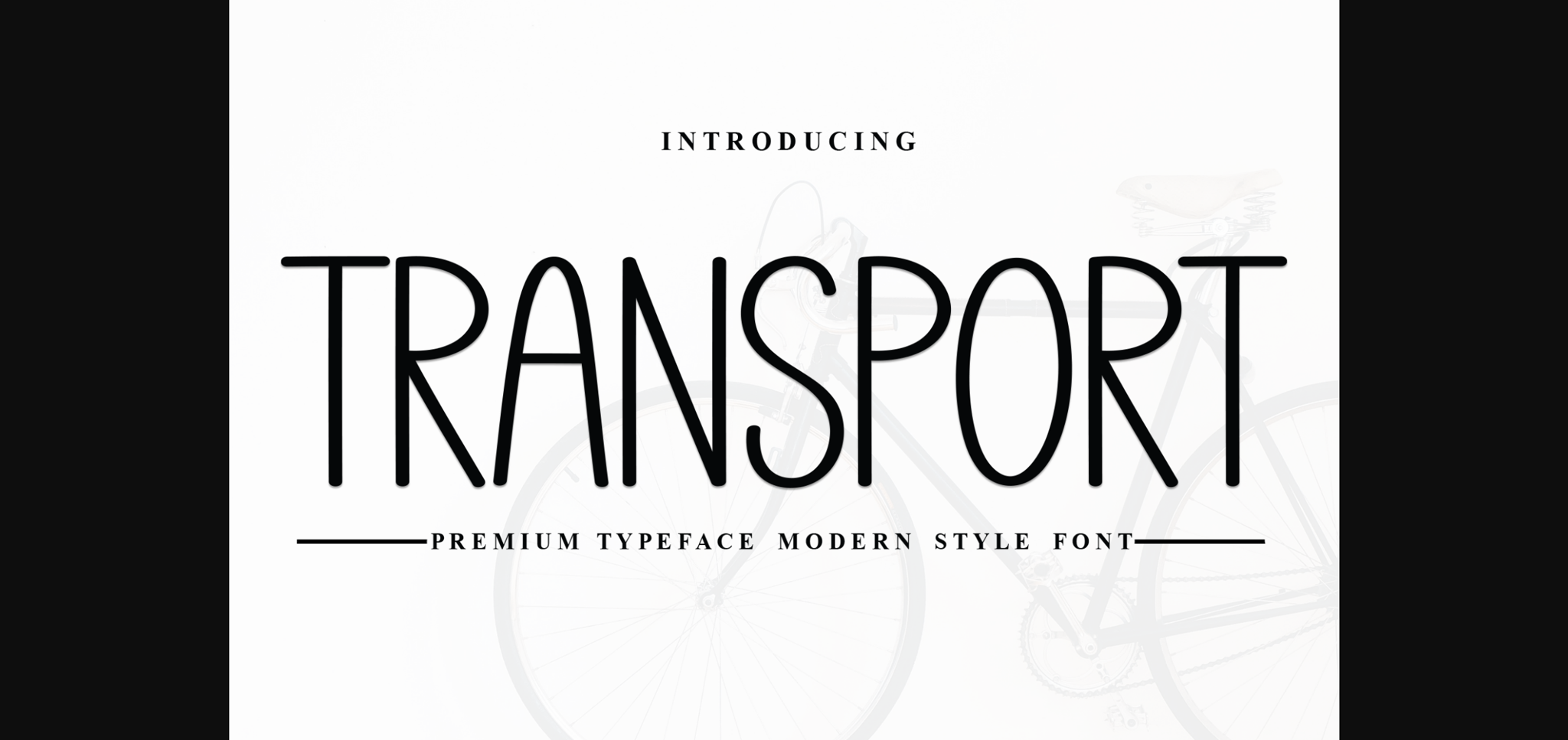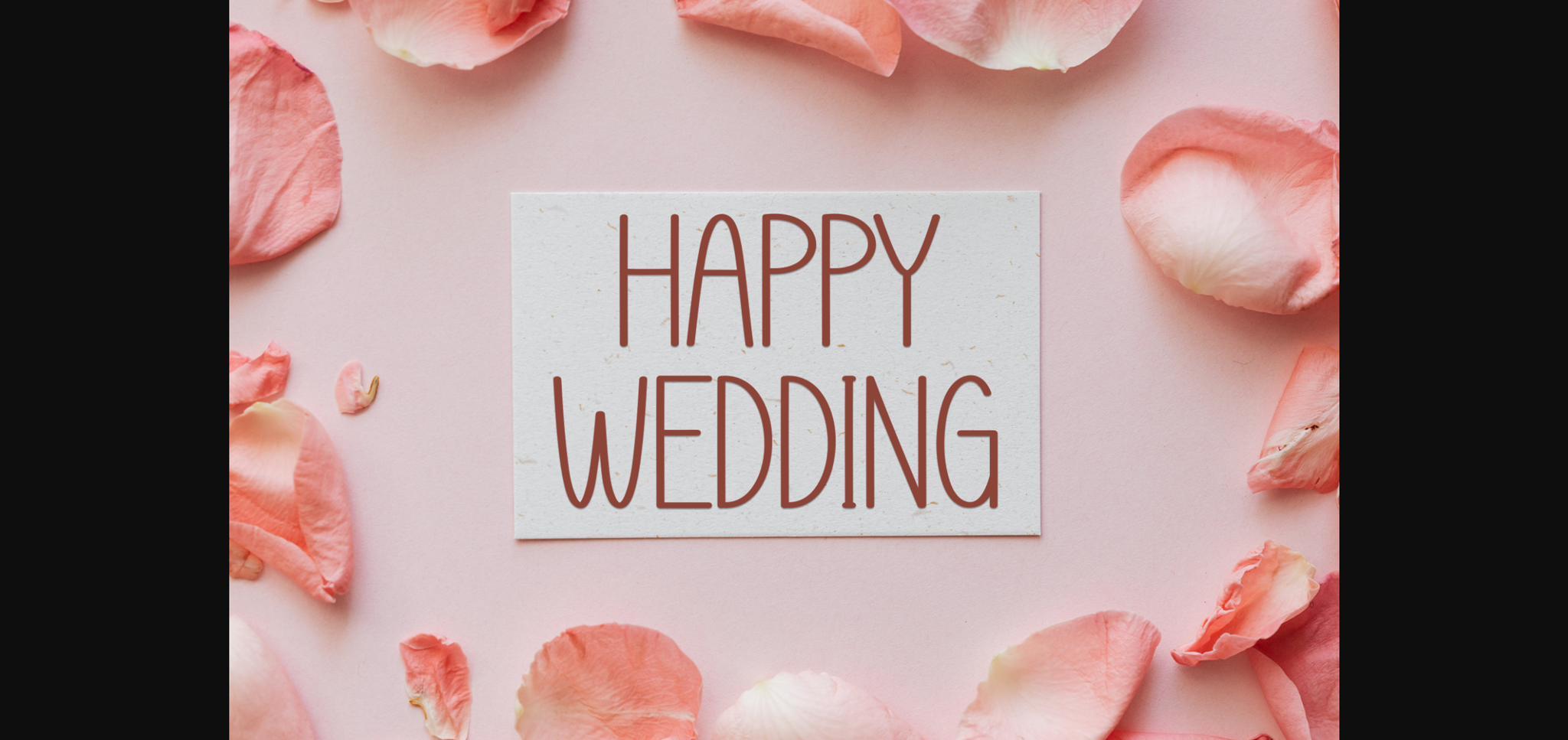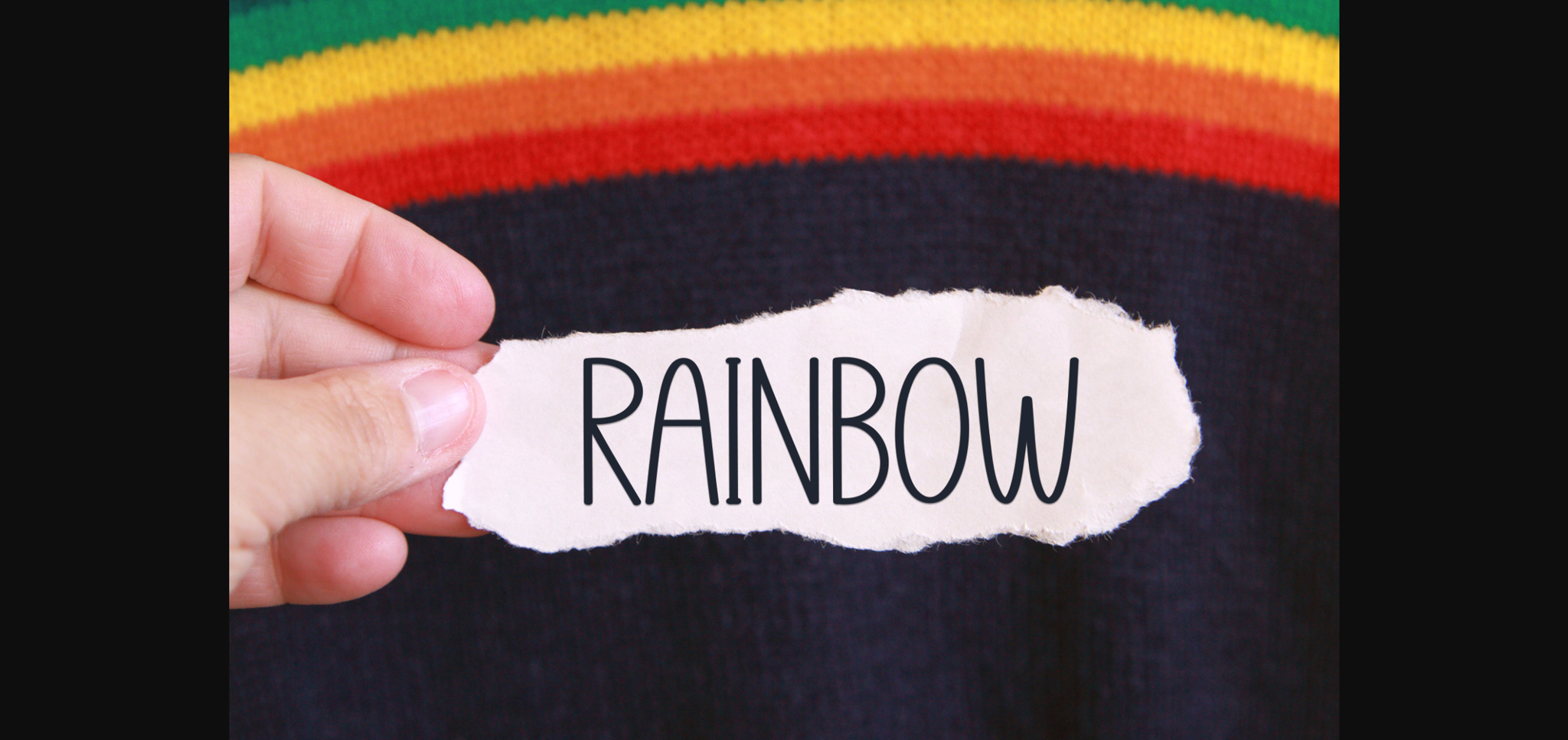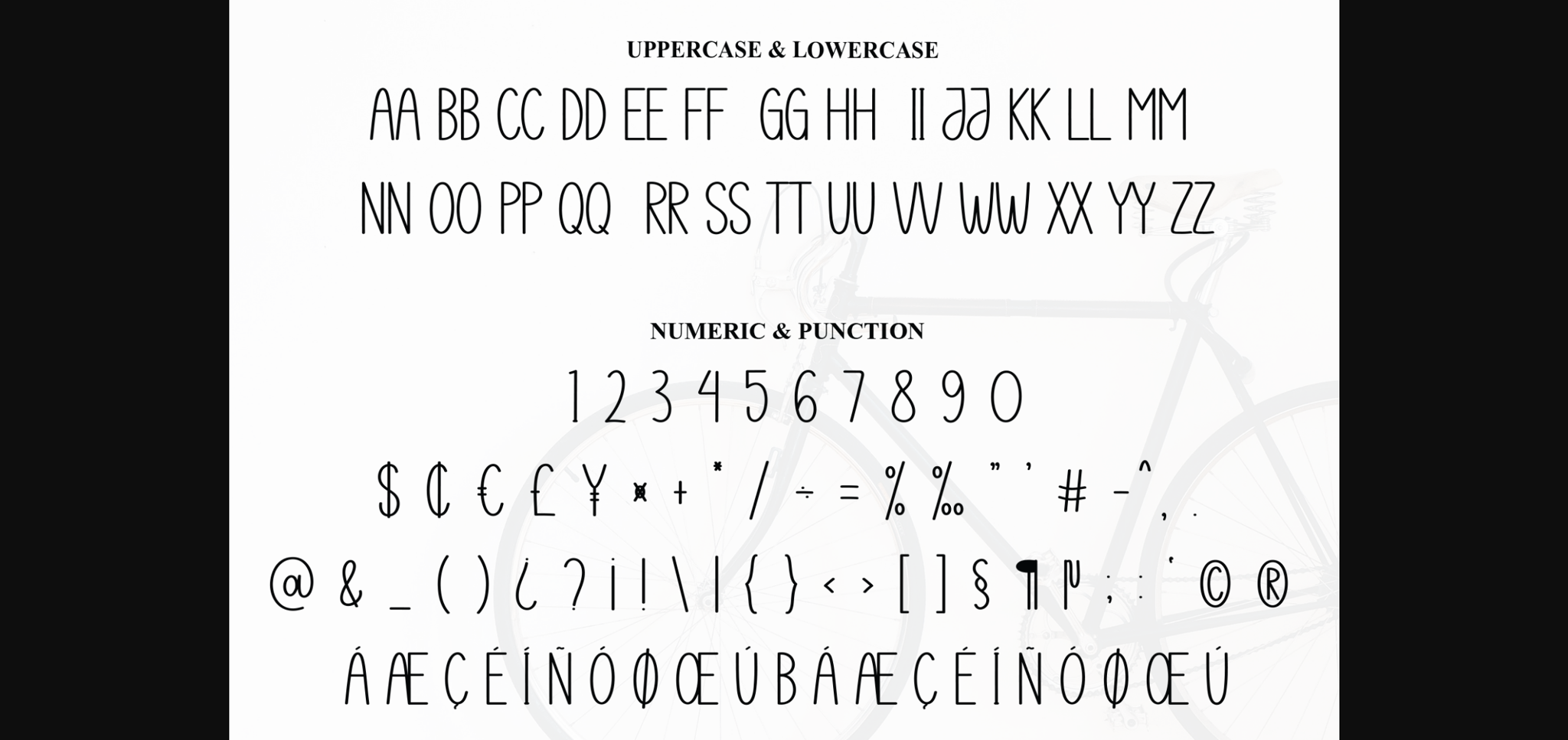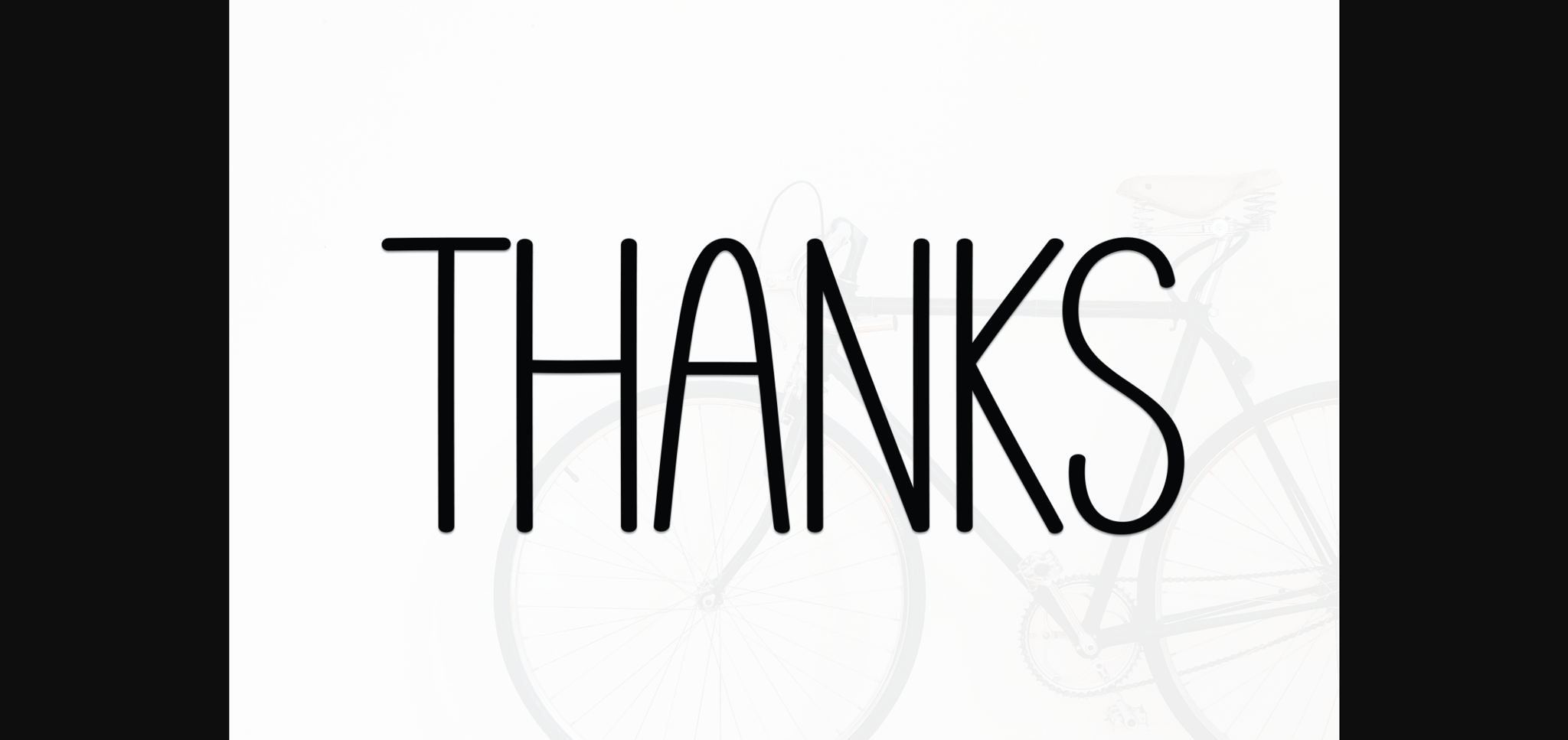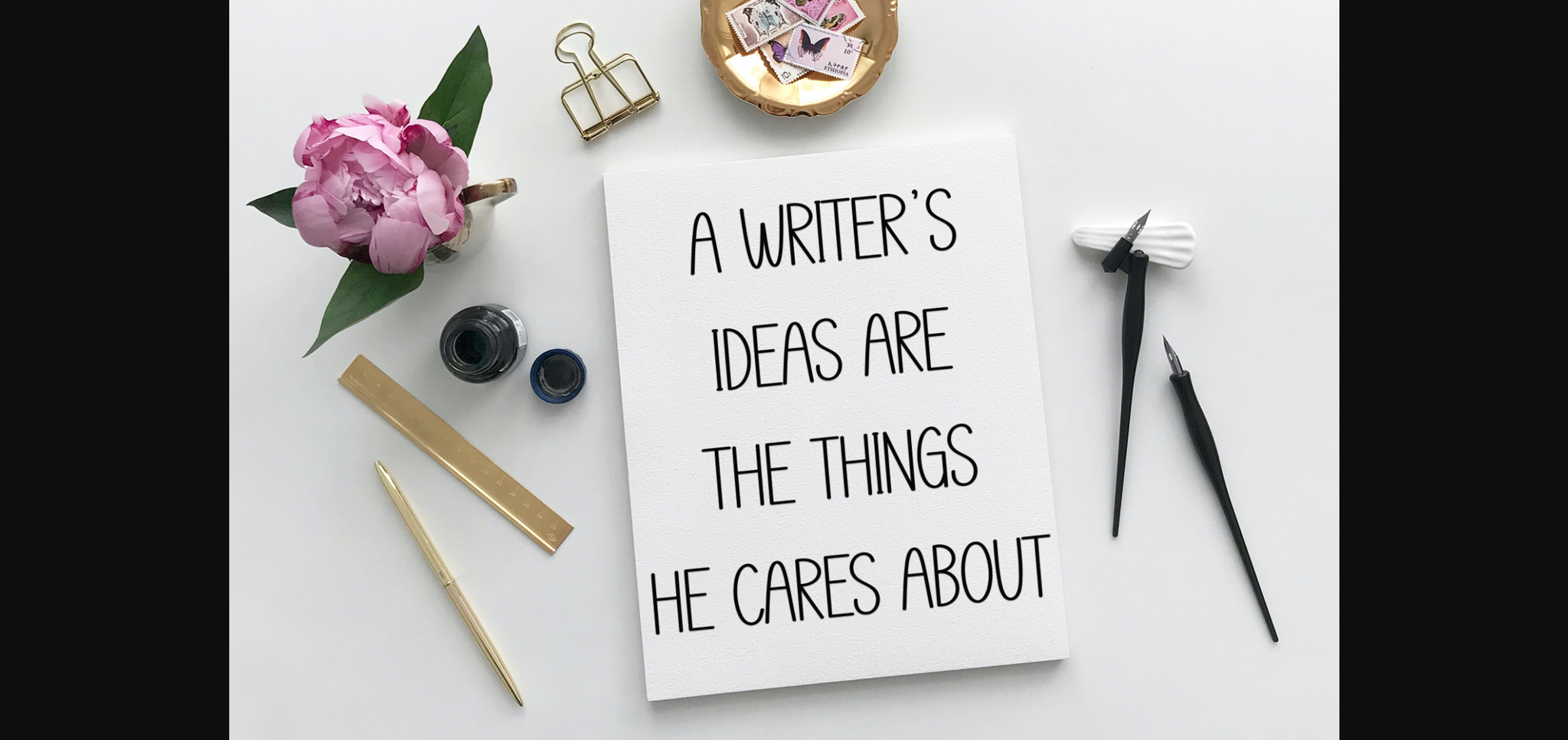
Transport is a neat and beautiful sans-serif font described by an elegant touch, perfect for your favorite projects. Fall in love with its incredibly distinct and timeless style, and use it to create spectacular designs!